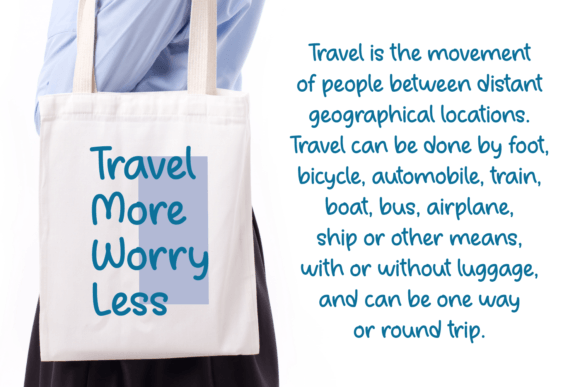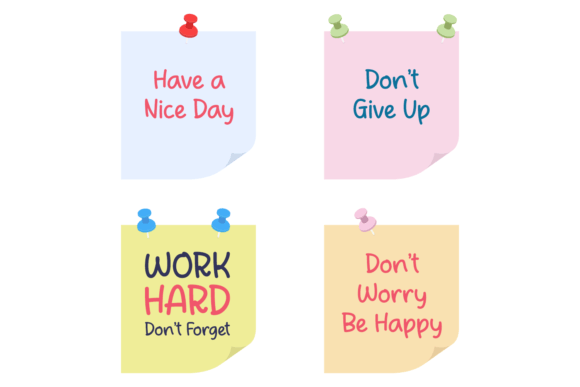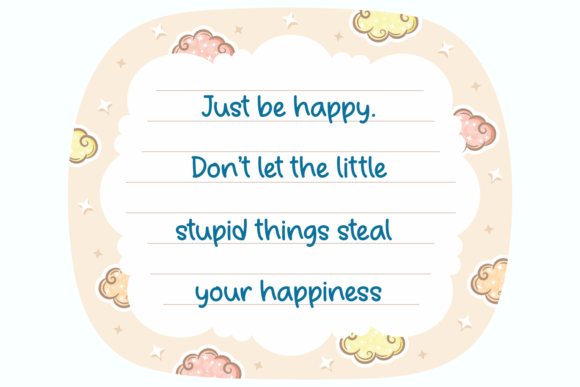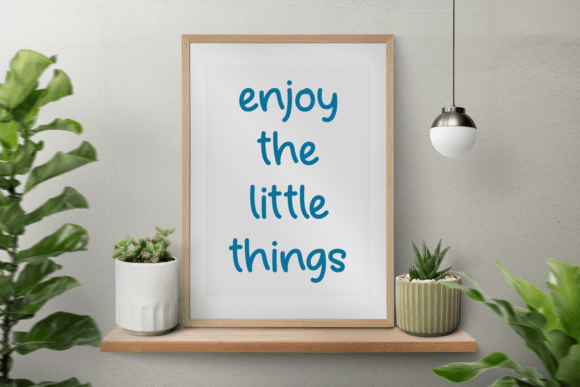
Introduction to Ready Notes Font
Do you remember that magical moment when you stumbled upon the perfect font to bring your creative project to life? For designers, it’s a feeling of excitement and relief all rolled into one. And for those who’ve been searching for the perfect handwritten font, we’ve got some wonderful news: say hello to the Ready Notes Font!
This charming font is more than just a pretty face – it’s a design resource that’s both high-quality and versatile. Whether you’re working on a branding project, creating social media graphics, or illustrating a children’s book, the Ready Notes Font is the perfect companion. Its transparent background and cute, whimsical style make it an ideal choice for designers looking to add a touch of magic to their work.
Key Features of Ready Notes Font
- High-quality, unique typography for creative projects, perfect for designers and artists.
- Features a transparent background, allowing for seamless integration into various design backgrounds.
- Designed to be highly legible, making it ideal for use in headings, titles, and other prominent design elements.
Honest Review: Ready Notes Font
I recently had the chance to work with the Ready Notes Font, and I must say it’s been a game-changer for my creative project. The moment I downloaded it, I was struck by its high quality and unique design. The transparent background adds an extra layer of flexibility, allowing me to use it in a variety of contexts.
Here are some things that really stand out:
- ✨ Excellent legibility: The font is clear and easy to read, even at smaller sizes.
- ✨ Versatility: With a transparent background, I can use it on a variety of backgrounds, from light to dark.
Of course, no font is perfect. Here are a few limitations I’ve encountered:
- ⚠️ Limited font styles: While the font itself is great, there are only a few styles to choose from, which can limit its versatility.
- ⚠️ Not ideal for body text: Due to its unique design, it’s not the best choice for large blocks of text.
Overall, I’m really impressed with the Ready Notes Font. While it may have some limitations, its unique design and high quality make it a great addition to any creative project. If you’re looking for a free design resource that adds a touch of sophistication, I’d definitely recommend giving it a try.
To get the most out of the Ready Notes Font, use it on a transparent background to create a clean and modern look. Experiment with different font sizes and colors to add visual interest to your design. You can also combine the font with other design elements, such as images and shapes, to create a unique and eye-catching design.
The Ready Notes Font is commonly used for creative projects, such as social media graphics, presentations, and marketing materials. It’s also used in digital products, such as ebooks and online courses, to add a professional and modern touch.